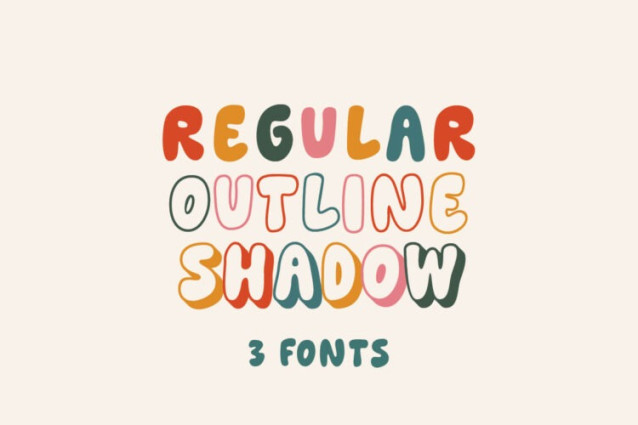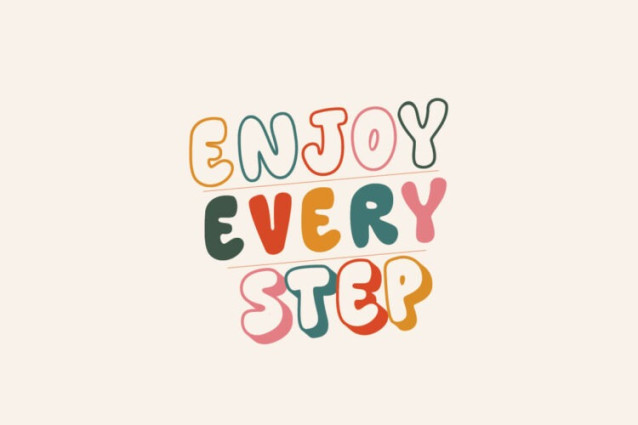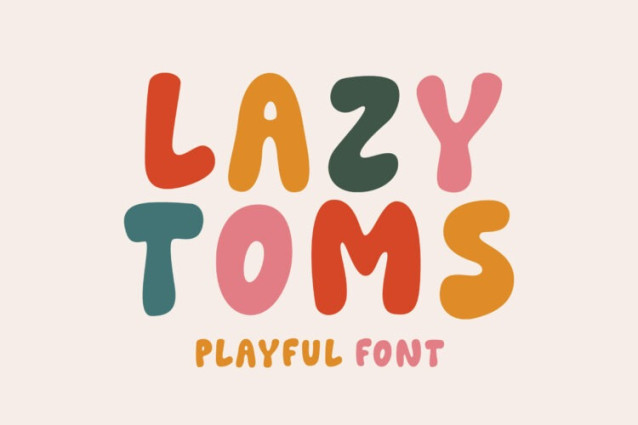
Lazy Toms Font
Lazy Toms Font is a cute playful display typeface with soft rounded shapes and cheerful character. Perfect for kids projects, posters, packaging, branding, quotes, merchandise, social media, and creative crafts. It brings a warm, friendly, and joyful feel to any design.